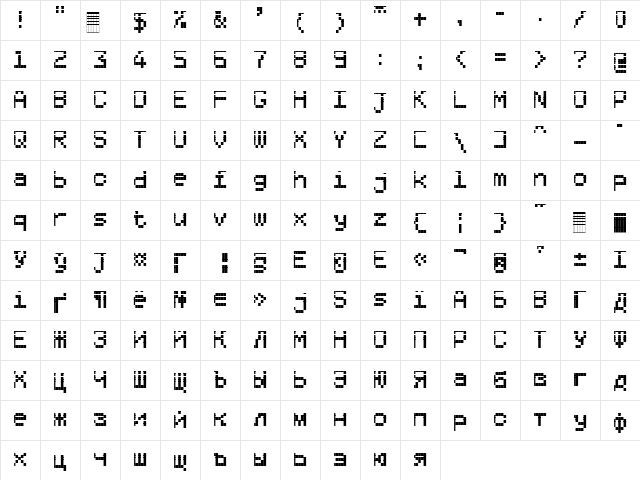
PoligonCTT Regular
Design Context for PoligonCTT Typeface
PoligonCTT is a composed and adaptable typeface that performs quietly and consistently across a wide range of design contexts.